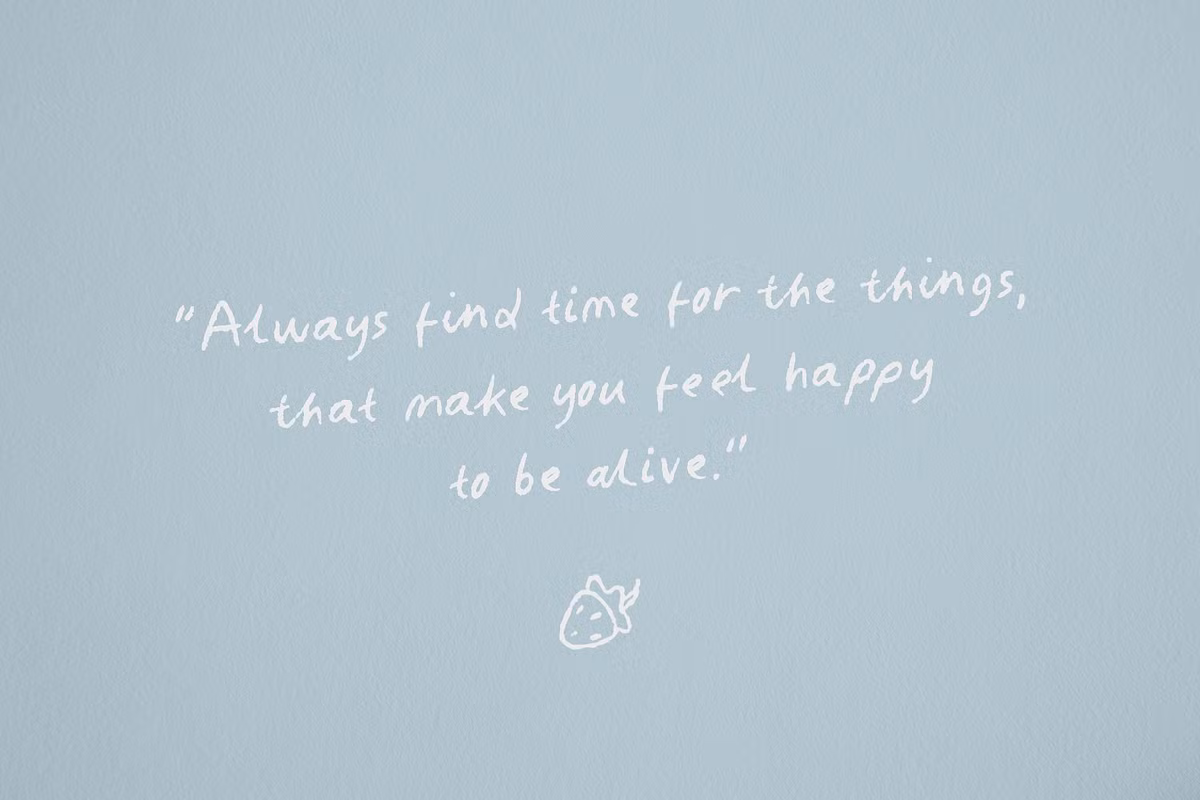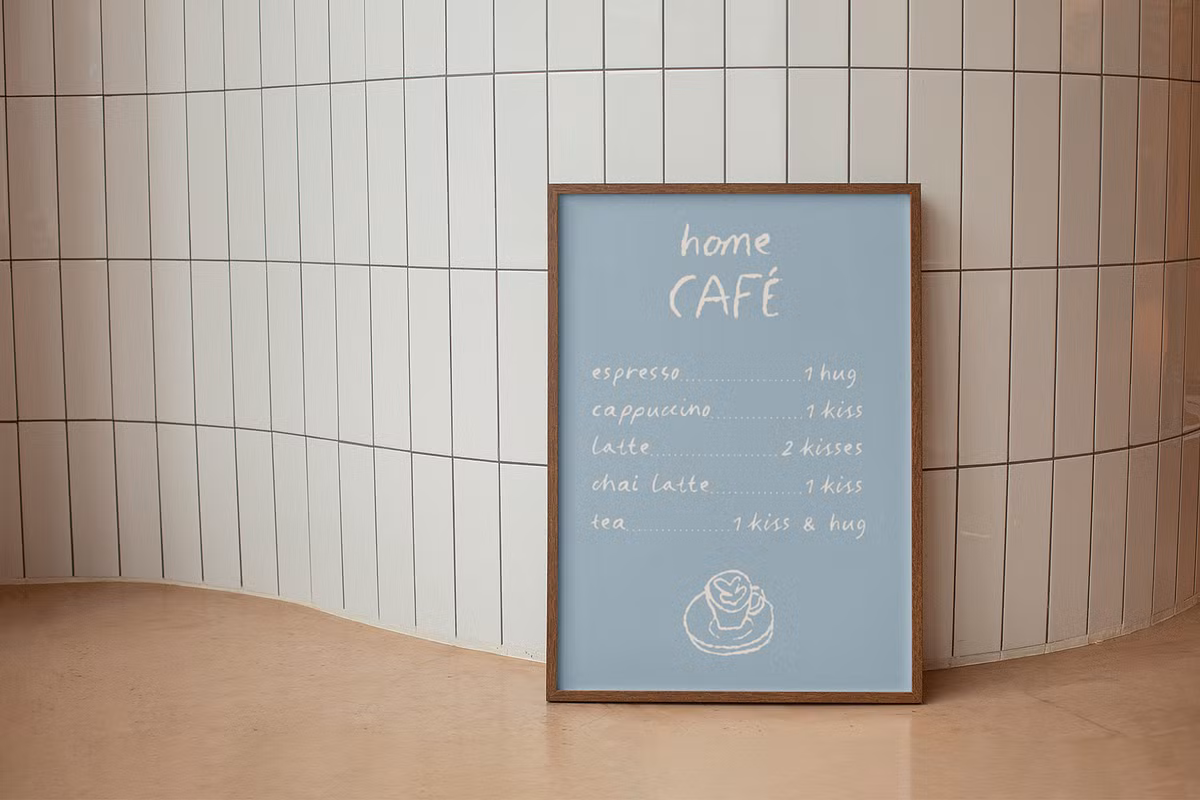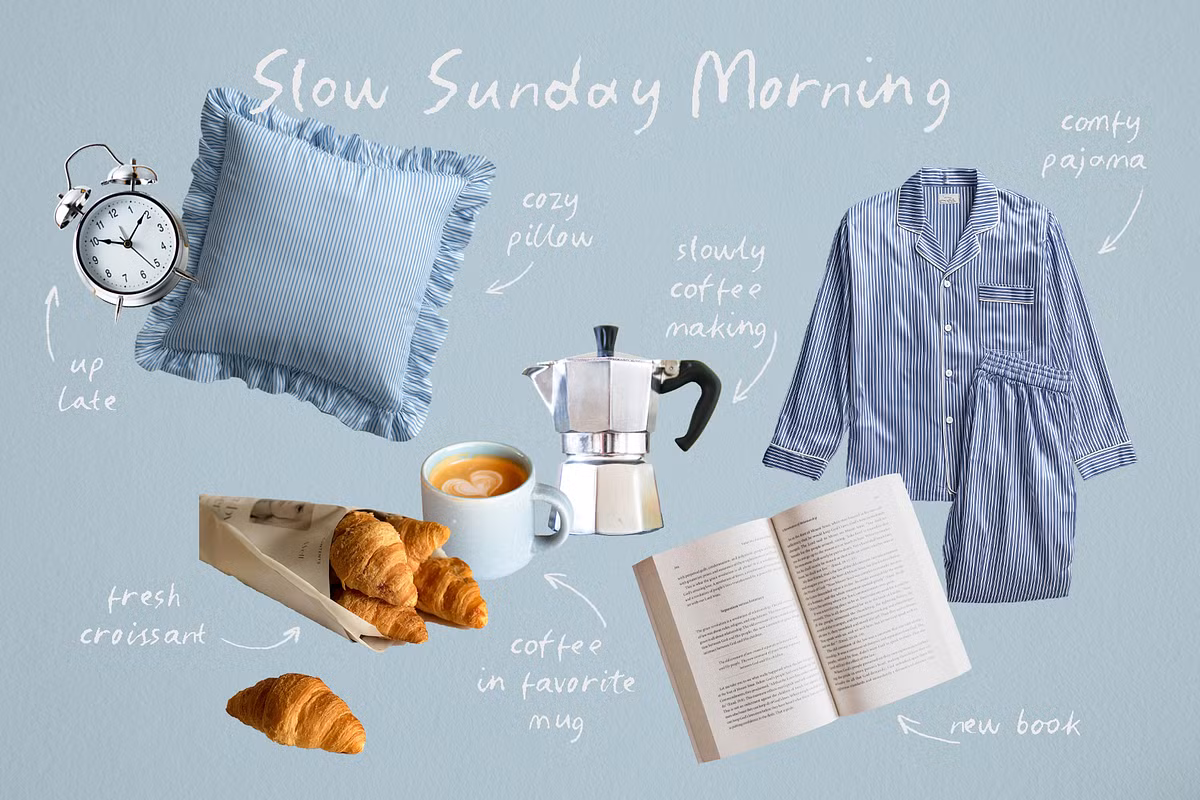
Coarse Ground Handwritten Font: Warm and Whimsical Display Typeface
Introducing Coarse Ground, a delightful handwritten display font that encapsulates the essence of slow coffee mornings, cozy routines, and the beauty of simple everyday moments. This typeface is designed to bring warmth and authenticity to your designs, making it an ideal choice for projects that aim to evoke a personal touch.
The Coarse Ground font has a really nice, casual feel to it, with soft strokes that give it a slightly imperfect look, kind of like something you’d write in a journal. This style is great for making your design feel warm and charming, which is perfect for when you want to connect with people on a more personal level. It’s like the font is saying, “hey, I’m friendly and approachable,” which can be really powerful for designs that want to build a relationship with their audience.
What makes Coarse Ground so special is its one-of-a-kind look, it’s like something made by hand. This style really fits well with designs that are all about appreciating the small things in life. The soft, curvy lines and the different thickness of the lines create a nice balance between being fancy and being fun, which makes Coarse Ground a great choice for lots of different uses.
Character Sets
You can use the Coarse Ground font in all sorts of situations and it still looks really good. It has a big set of characters, like lots of uppercase and lowercase letters, numbers, and punctuation marks. So, if you’re writing a love letter or making a sign for a coffee shop, the font has everything you need to make it look great. The characters are designed to help you be creative, whether you’re making something simple or something fancy.
What’s really great about Coarse Ground is that it also includes a wide range of special characters, which gives you a lot more freedom to get creative with your designs. This means it’s not just a visually appealing font, but also a really practical one that can handle whatever your project throws at it.
Use Cases
There are countless ways to utilize the Coarse Ground font in your designs. Here are a few notable use cases:
- Cozy Branding: Perfect for brands that embody warmth and personal connection, such as coffee shops, bakeries, and lifestyle brands.
- Café Menus: Enhance the inviting atmosphere of your café with a handwritten menu that feels approachable and friendly.
- Bakery Visuals: Use Coarse Ground for packaging and promotional materials that highlight the artisanal quality of your baked goods.
- Social Media Posts: Create engaging and relatable content that resonates with your audience by using this font in your posts and stories.
- Wedding Invitations: Add a personal touch to your wedding stationery, making it feel intimate and special.
When using Coarse Ground, consider pairing it with other fonts that complement its whimsical style. This enhances the overall aesthetic of your design projects and maintains readability.